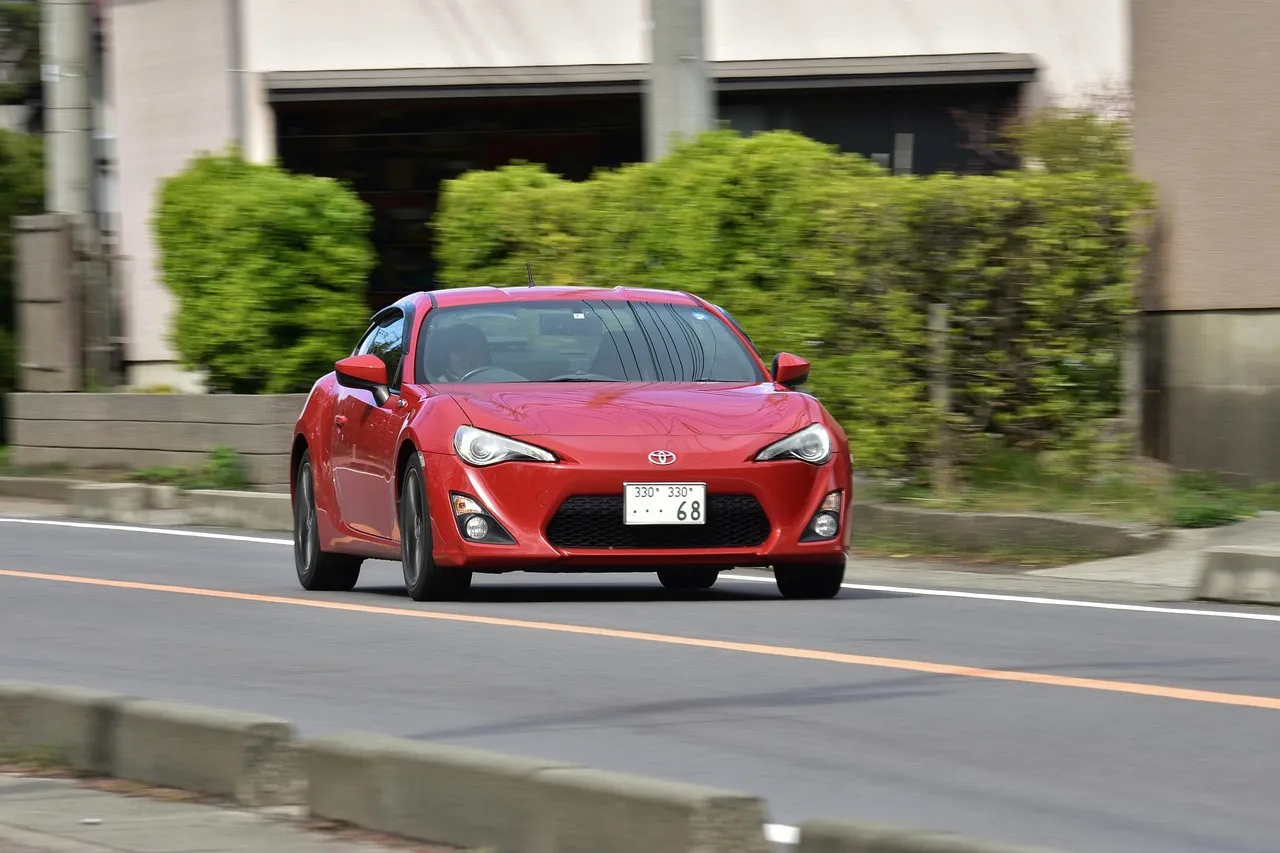
Toyota Electric Motor Corporation, Japanese Toyota Jidosha KK, Japanese moms and dad business of the Toyota Group. t was founded by Kiichiro Toyoda as well as incorporated on August 28, 1937. n 2017, Toyota’s business framework included 364,445 workers globally as well as, since December 2019, was the tenth-largest firm in the world by income. It ended up being the biggest auto manufacturer in the world for the very first time in 2008, going beyond General Motors. Most of its regarding 1,000 subsidiary firms and also affiliates are involved in the production of vehicles, vehicle parts, and commercial and industrial cars. Headquarters are in Toyota City, an industrial city eastern of Nagoya, Japan. Lets talk about Toyota logo & Toyota font.
The Toyota logo design is utilized when the Toyota master brand name is being advertised, functioning as an enroller or when several Toyota automobiles or sub-brands are being marketed in the very same interaction. The Toyota logo may show up reasonably simplified initially glimpse, however, it has several amazing as well as unique design elements.
First presented in October 1989 to note Toyota’s 50th anniversary, it took about five years to develop the three-oval logo. The emblem was designed to produce a strong, stick out aesthetic identity for the brand name as well as introduce the arrival of Toyota in many countries outside of Japan.
The three ovals in the Toyota logo design are linked in a horizontally balanced format– so it is recognisable both head-on and also when seen in a rear-view mirror.
The internal ovals symbolize the heart of the company and the heart of the business, overlapping to stand for a mutually beneficial relationship and also trust fund in between the two, in addition to forming a ‘T’ form for Toyota. The external oval one indicates the globe accepting Toyota.
Despite all its successes, throughout the history of the Toyota logo, the symbol has never produced rather the very same level of appeal as the Ford and also Chevrolet logo designs, though possibly it is a bit unreasonable to compare the popularity of the Toyota logo to 2 rivals as steeped in practice and nationwide appeal as Ford and also Chevy.
Font Used in the Toyota logo
The font family which you have actually seen in its logo design is basically designed by Toyota Company for their main works. So, it does not offered for the general public. However, many websites show different opinions. Among them Suprema Bold and Avenir are the most mentioned. So let’s move on to the next section considering these two fonts as Toyota fonts.
Toyota Font
Suprema Font:
Suprema is a modern sans-serif typeface designed and shared by Artegra. Many websites refer to this font family’s Suprema Bold font as the Toyota font. When it comes to Opentype it has great deals of attributes such as tabular lining, proportional oldstyle, tabular oldstyle, ligatures, superscript, subscript, portions and also language localisations for Polish, Dutch, Romanian, Moldovian and Catalan.
Avenir 95 Font:
Avenir 95 is a sans-serif typeface designed by Mr Adrian Frutiger and released by Linotype font foundry. Various websites mention that this font has a lot in common with the lettering used in the Toyota logo, meaning that it is a Toyota font.
The font family which you have actually seen in its logo design is basically designed by Toyota Company for their main works. So, it does not offered for the general public. However, many websites show different opinions. Among them Suprema Bold and Avenir are the most mentioned.
In the emblem, “Supra” are written in a kind of brush script-looking typeface. And the font used in this is probably custom made which Toyota company did not reveal.